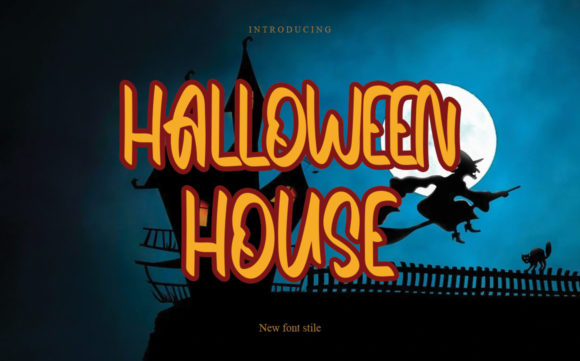
Step into the enchanted realm of Halloween House Font, an extraordinary creation that will transport your artistic visions to dazzling heights. This exquisite font, designed by the ingenious A2-lucky, is a tribute to exquisite elegance and sophistication. Dripping with charm and personality, Halloween House Font is the perfect choice for adding a dash of magic to your creations.
Crafted with meticulous attention to detail, Halloween House Font is imbued with captivating beauty and exceptional versatility. Its fluid lines dance across the page, reminiscent of a gentle breeze rustling through autumn leaves. Each character holds a unique story, adorned with delicate flourishes and bewitching curves. Feel the warmth of artistry as this font weaves its spell, leaving your designs spellbound.
Unleash your imagination and explore the boundless possibilities Halloween House Font presents. With its elegant style and charming demeanor, it is the ideal companion for wedding invitations, adding a touch of whimsy and sophistication to your special day. Transport your words into a realm of enchantment as you craft ethereal album pages, where memories are beautifully preserved in the font's delicate embrace.
Halloween House Font is a sanctuary of creativity, inspiring you to explore new dimensions of artistic expression. Whether you're a seasoned designer or just starting your creative journey, this font will ignite your imagination and elevate your projects to new heights. Let the magic of Halloween House Font weave its enchanting spell and transform your designs into works of art.
Indulge in the beauty and versatility of Halloween House Font today. Embrace its captivating charm and make your artistic visions come alive. Dive into a world of creative delight and let your imagination soar. The possibilities are endless, waiting for you to unlock them. Welcome to the enchanting world of Halloween House Font!